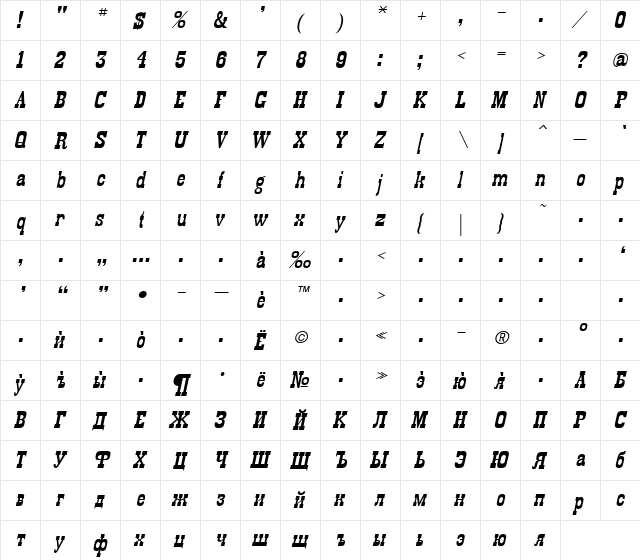
TexasCyr Italic
Design Context for TexasCyr Typeface
TexasCyr is a composed and adaptable typeface that performs quietly and consistently across a wide range of design contexts. Its italic angle brings a sense of urgency and motion to the letterforms.
Pro Tip: Try TexasCyr for annotation and caption copy alongside an upright companion — the contrast in angle creates a dynamic but ordered typographic system.